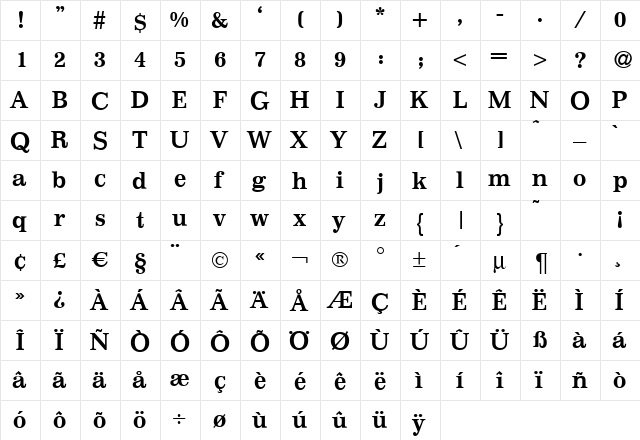
I770-Roman Bold
Bold · SoftMaker Software GmbH SoftMaker Software GmbH ·
Foundry SoftMaker Software GmbH
DesignerSoftMaker Software GmbH
Design Context for I770-Roman Typeface
I770-Roman takes a measured approach to typography — its balanced proportions and neutral character make it a reliable workhorse for both digital and print work. The heavy weight commands attention and anchors typographic hierarchies.